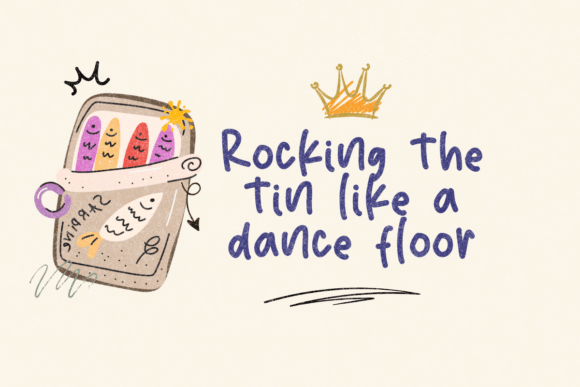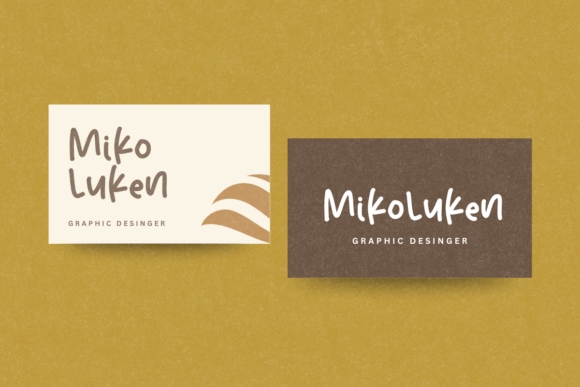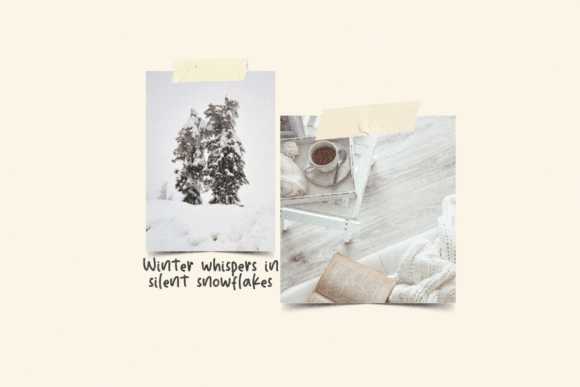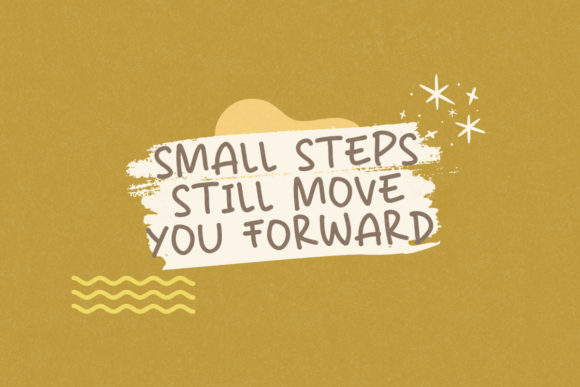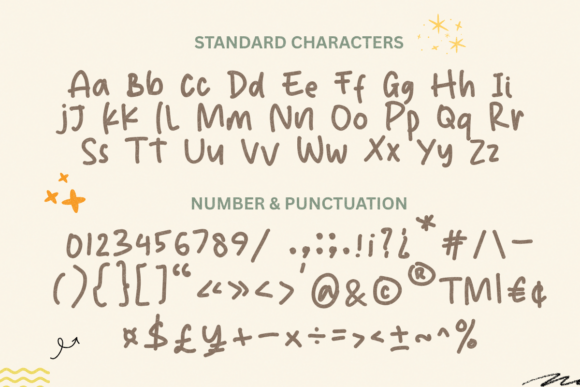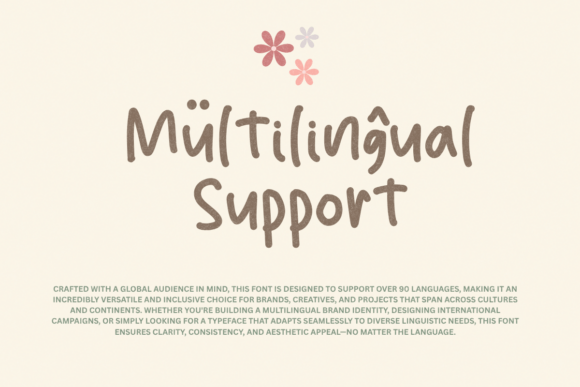
Unleash the Joy of Handwritten Charm
Do you remember scribbling with reckless abandon as a child, letting your pen dance across the page in a joyful explosion of creativity? That’s exactly the feeling that Binky Twist Font aims to capture – the carefree, whimsical spirit of childhood writing.
Binky Twist Font is a fun, handwritten font designed to add a touch of playful charm to your designs. With its unique strokes and whimsical curves, it’s the perfect addition to any creative project, from children’s books and educational materials to branding, packaging, and social media graphics. This font is a valuable tool for designers looking to inject personality and approachability into their work.
Binky Twist Font Key Features
- Font Style: Hand-drawn, cursive font with a playful twist.
- Unique Characteristics: Features a unique, hand-drawn design with a twist, making it perfect for adding a personal touch to your designs.
Binky Twist Font Review
The Binky Twist Font is a visually striking choice for designers looking to add some whimsy to their projects. ✨ The font’s unique, hand-drawn feel makes it perfect for titles, headings, and other attention-grabbing elements. It’s also surprisingly legible, which is a bonus for longer blocks of text.
However, there are a few limitations to keep in mind. ⚠️ The font’s irregularities can make it difficult to pair with other fonts, and some characters may not be as polished as others. Additionally, the font’s “twisted” feel can sometimes make it hard to read for those with certain visual sensitivities.
Overall, I’d recommend the Binky Twist Font for designers who want to add a touch of playfulness to their projects. While it’s not suitable for every design, it’s a great choice for those looking to create something unique and eye-catching.
- Unique, hand-drawn feel
- Perfect for titles, headings, and attention-grabbing elements
- Legible, even in longer blocks of text
- May be difficult to pair with other fonts
- Some characters may not be as polished as others
Getting the Most Out of Binky Twist Font
For the best results, use the Binky Twist Font in combination with bold or italic text to add emphasis.
The Binky Twist Font is ideal for:
Food and beverage branding
Children’s book illustrations